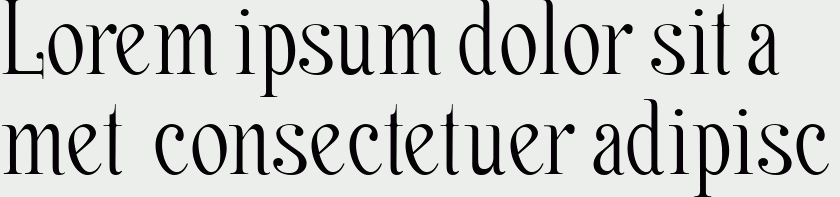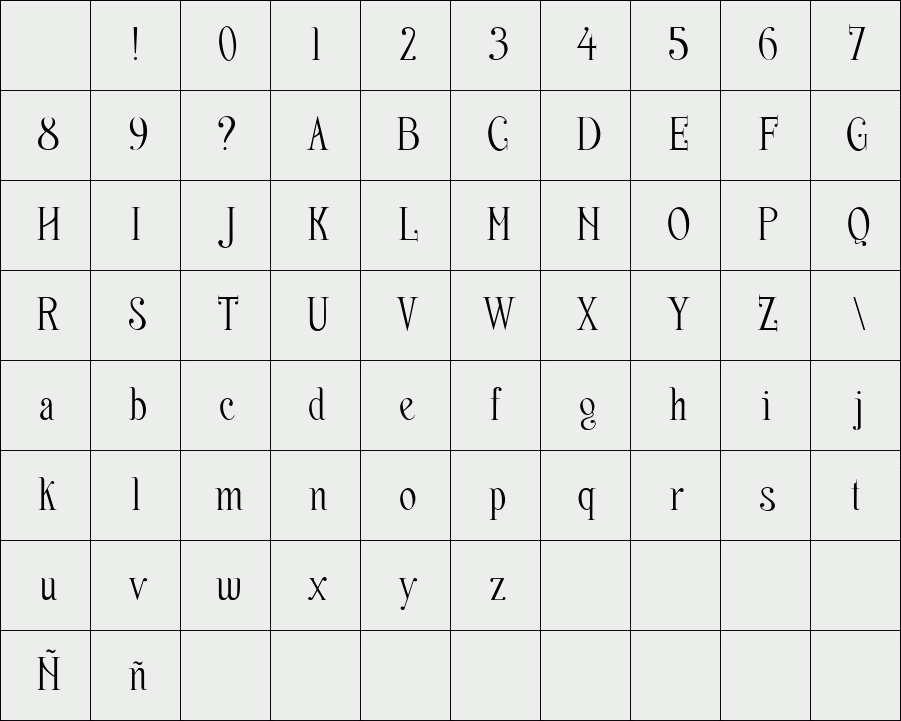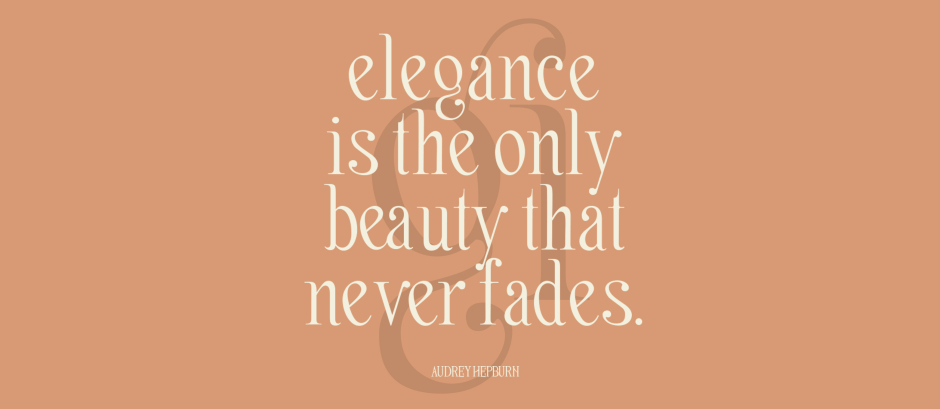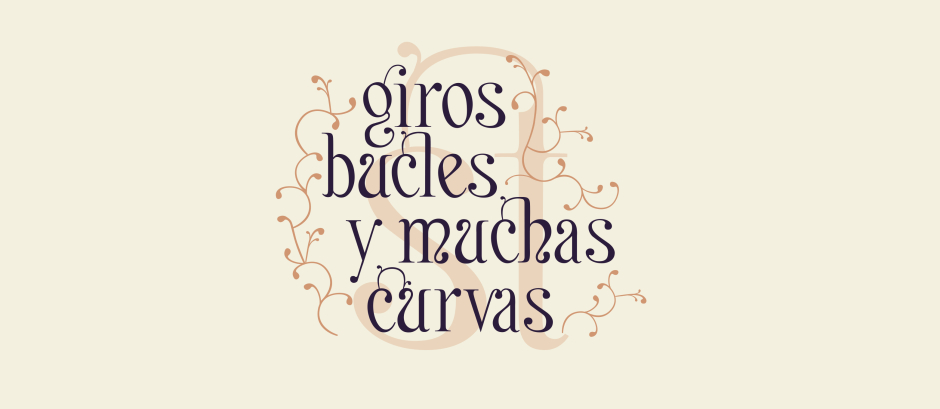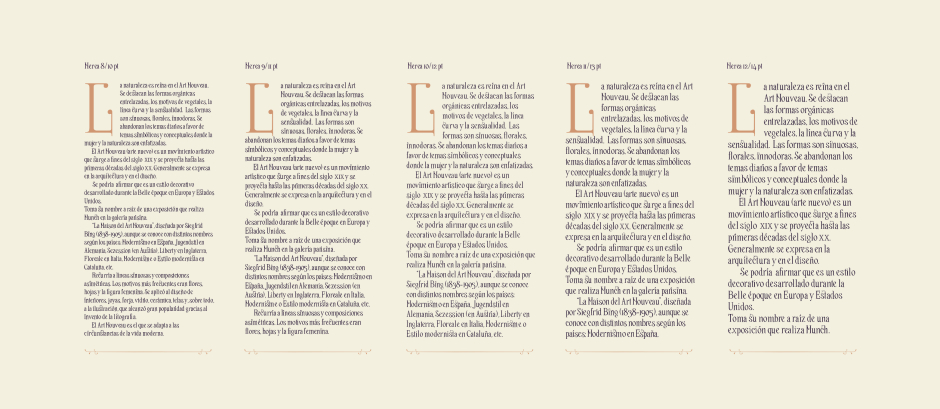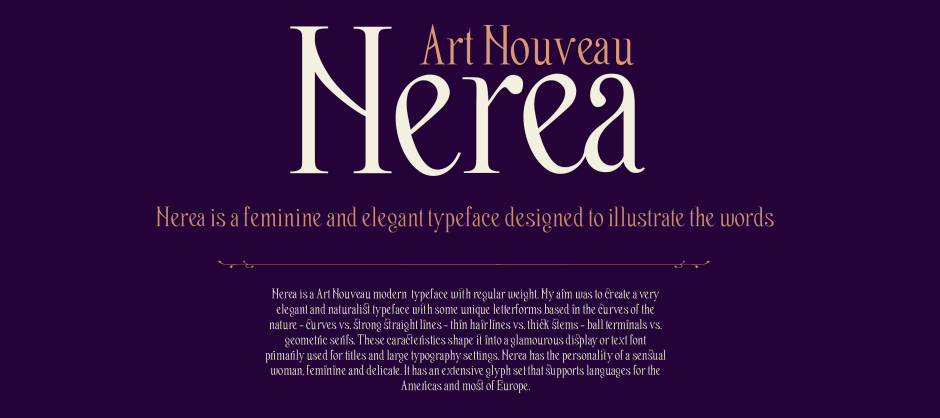
Nerea Simple Version
Nature is the queen in the Art Nouveau and it highlights the organic intertwined forms, plant motifs, the curved line and sensuality. The shapes are sinuous, floral and innovative, and from that understanding comes this new typographic project.
Nerea is the result of "Tipografía III" subject of "Estudios Superiores de Diseño Gráfico" at Escuela de Arte de Granada. The design process began in December 2013 and ended in June 2014. However, it is only the beginning, because much remains to be done to this family. Nerea is a typeface inspired by Art Nouveau, whose design is based on organic and stylized forms, that convey delicacy and fluidity. Typography is well constructed with feminine character with decorative applications where flowing format with grace and reinforcing the property with a large set of ligatures. These characteristics of Art Nouveau are reflected in this typographic project and personality of women is also evident in the name of this new typography, Nerea.